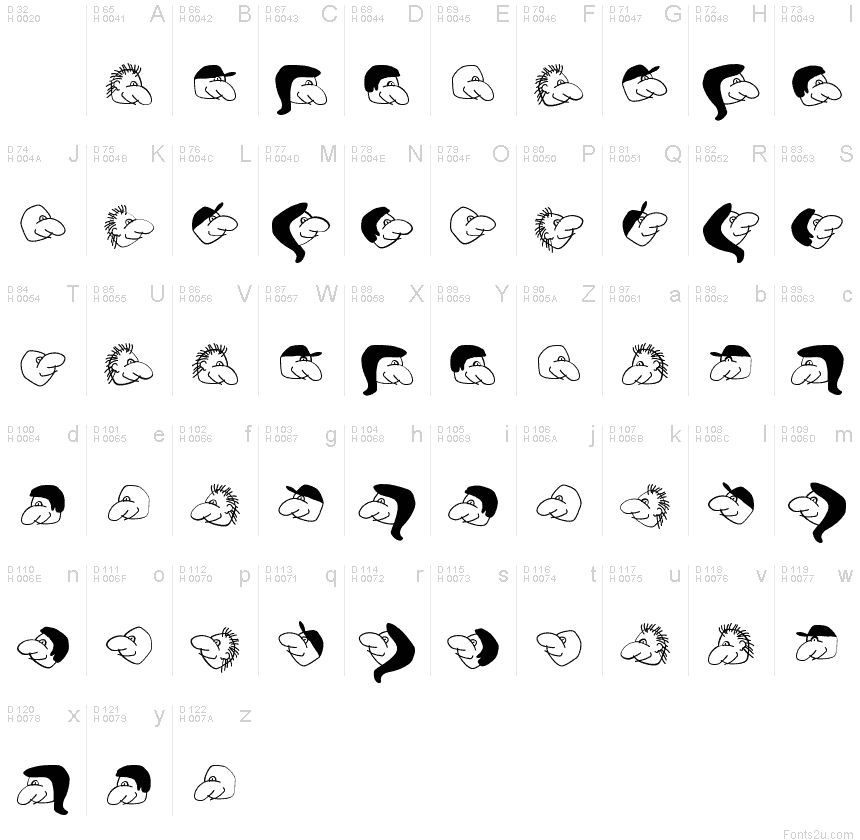
JulySketches by M Klein is a free cartoon portrait dingbat font built from loosely drawn profile faces. Oversized noses and quick looping outlines unify the cast.
It is most convincing as a set of comic spot illustrations for magazines. The oddball cast also fits children's activity sheets, event posters, and humorous merchandise. Across these uses, the repeated side view turns separate faces into a recognizable group without making them look identical.